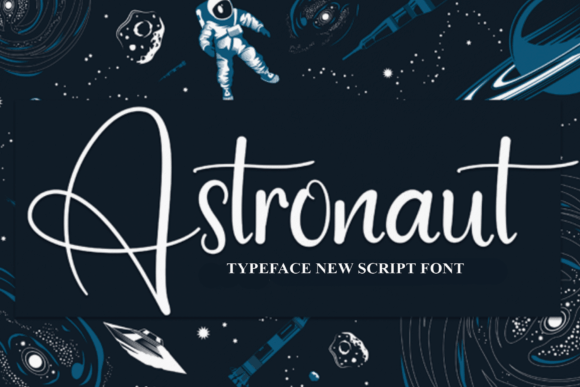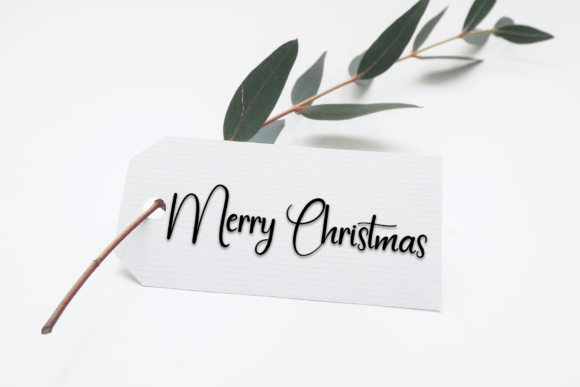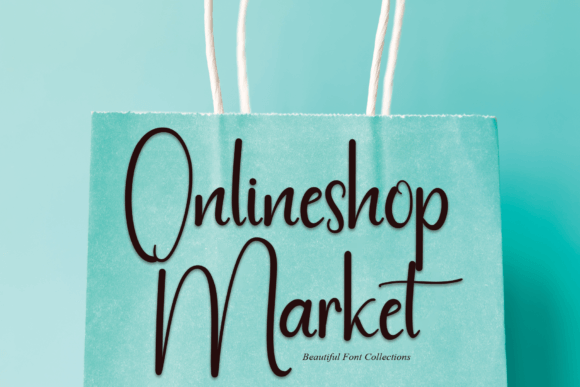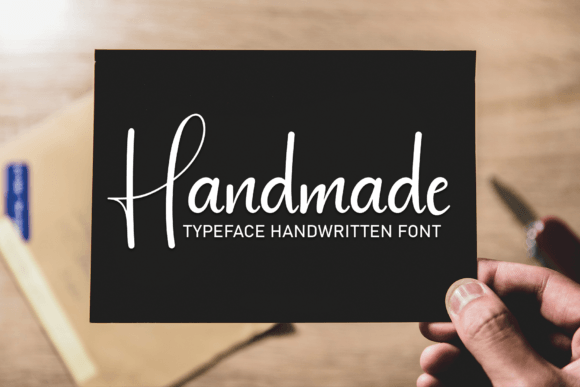
Astronaut Font
About Astronaut Font
Astronaut Font is a fun and welcoming handwritten typeface that adds personality and charm to any creative project. With its casual and clean strokes, this font is designed to look natural and inviting. Whether you’re crafting for personal use or building brand assets, Astronaut Font is sure to make your work stand out.
Perfect for Every Creative Occasion
This delightful font is highly versatile and can be used for a wide variety of design tasks. For instance, you can apply it to greeting cards, digital artwork, product packaging, and even merchandise. Its legible and friendly nature makes it an excellent option for both professional branding and playful designs.
Ideal Use Cases
AstronautFont works well in numerous creative settings, such as:
• Custom greeting cards and printable stationery
• DIY crafting projects and scrapbook layouts
• Logo design and product labels
• Wedding invitations and event signage
• Social media content and quote graphics
• T-shirt and tote bag designs
Friendly, Stylish, and Easy to Use
Crafted with care, the AstronautFont maintains consistent weight and spacing, ensuring it reads beautifully both on screen and in print. It’s not just stylish—it’s also practical. Additionally, it includes well-balanced characters that add a smooth, flowing touch to any text.